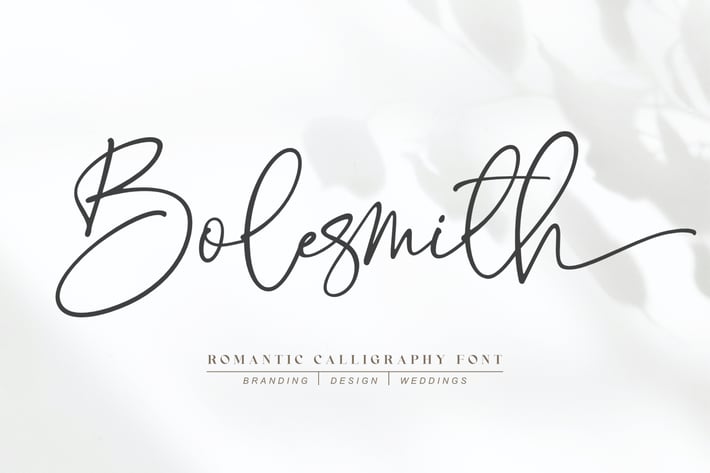
Bolesmith | Romantic Calligraphy Font
Bolesmith is an organic handwritten calligraphy font that is a wide range of ligatures and alternates are included so that you can give your logo or name a custom, hand-calligraphy look. The font has organic smooth wet ink texture with Modern Elegant Style this is perfect for branding, logos, invitation, masterheads and more.
Bolesmith Features :
- Numeral
- Multilanguange
- Swash